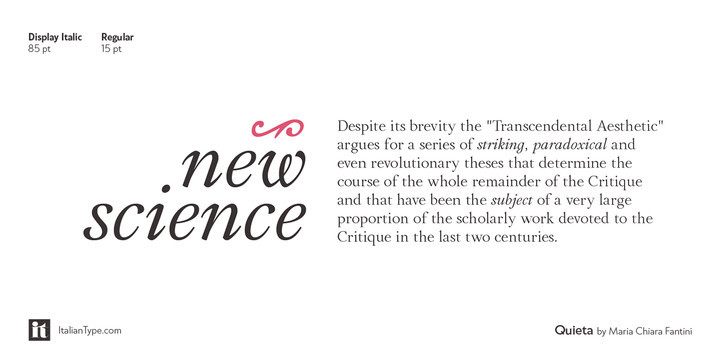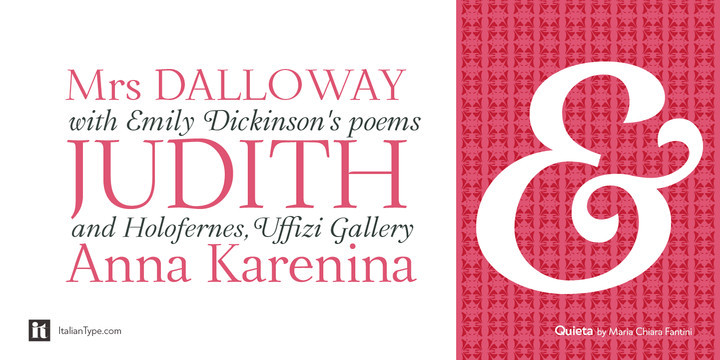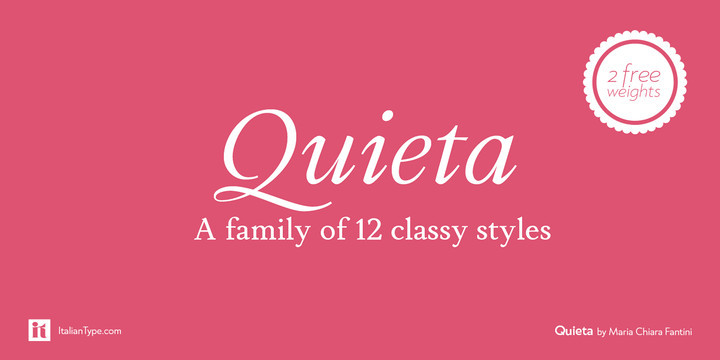
Quieta Font
Quieta is a humanist serif typeface inspired by the aesthetics of Italian Renaissance and by the empowering history of the painter Artemisa Gentileschi, first woman to be admitted to an Academy of Fine Arts in Italy. The designer, Maria Chiara Fantini, has used sharp flat-nib calligraphic strokes to add a vibrant contemporary vibe to the traditional humanist proportions.